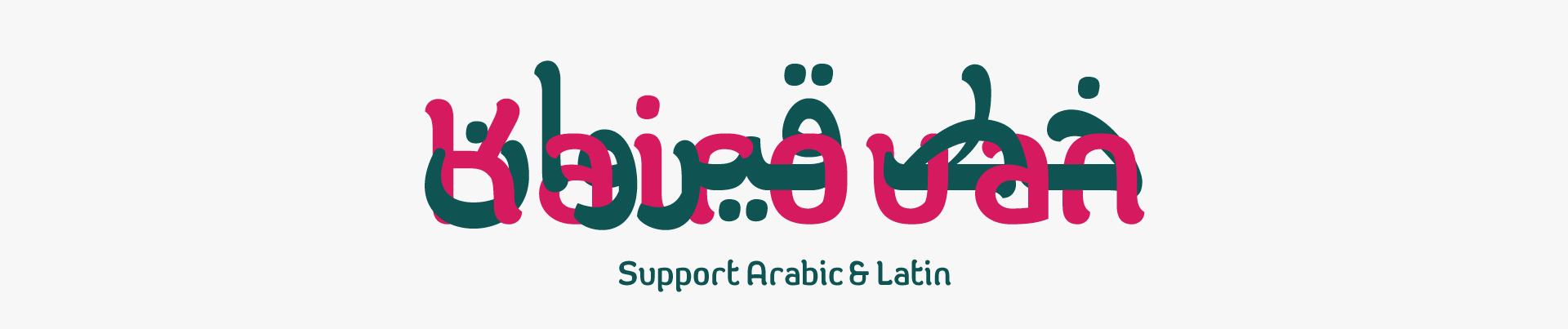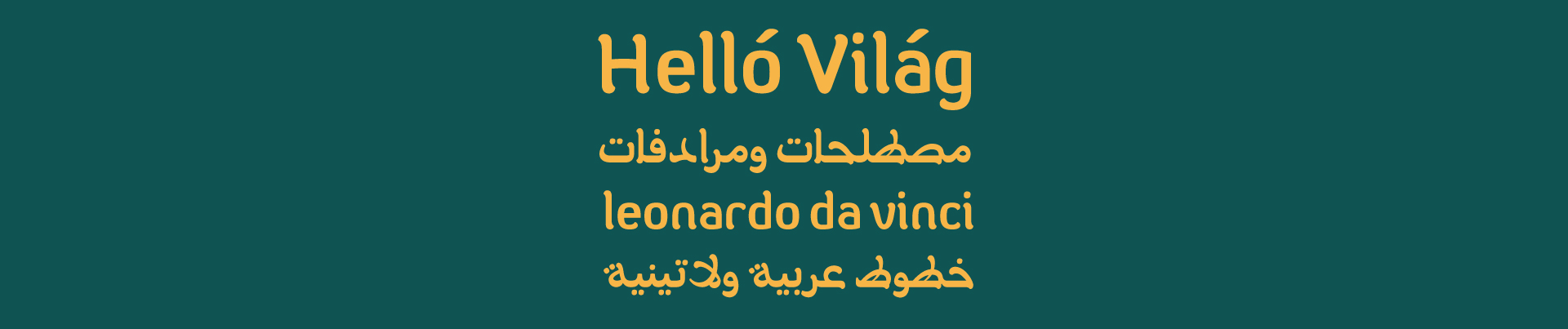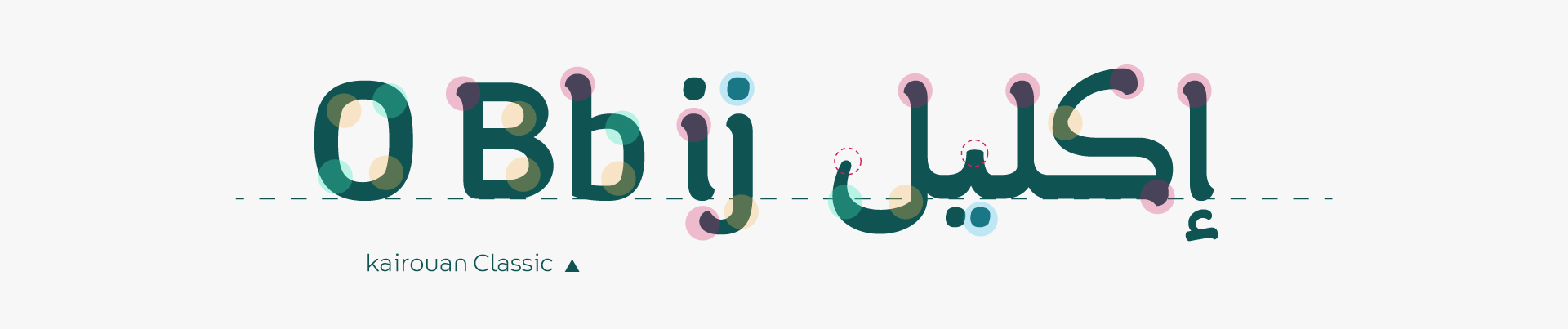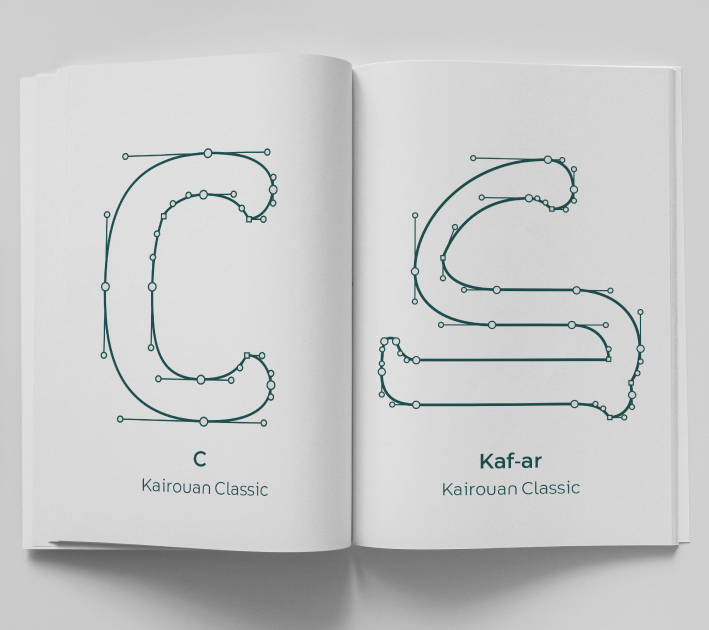
About Kairouan Font
Introduction:
In keeping with the development of the art of type designing, the original Maghribi calligraphy had a share in our foundry.
It was not about redrawing the letters but about adding a touch of modernity to them in compliance with the rules of clarity and readability,
Weights and Languages:
Kairouan Font consists of 1 weight.
It supports Arabic and Latin.
Usage:
Kairouan Font is used in headlines, short texts, social media posters, and visual identities.